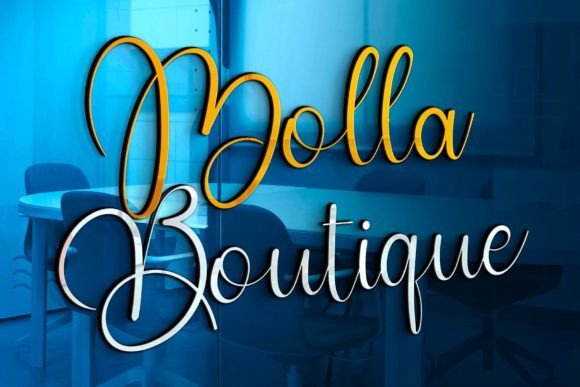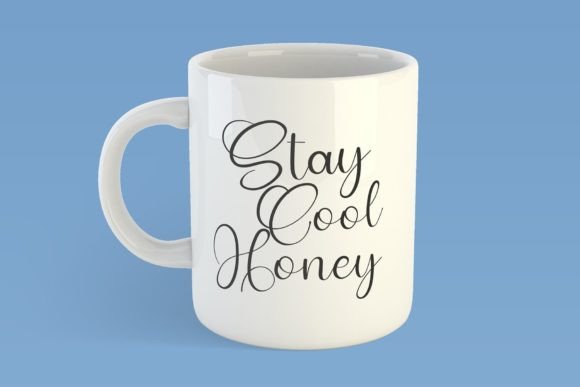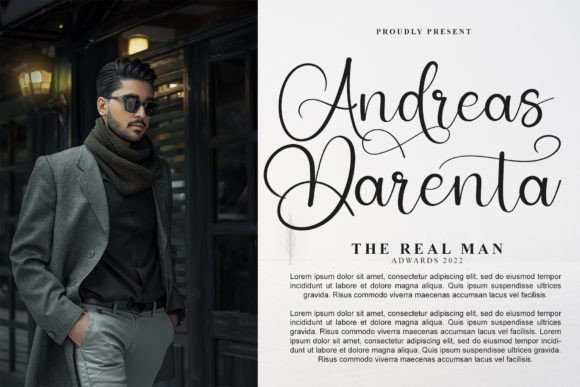
Introduction to Eviden Font
Eviden is a delicate and elegant handwritten font.
Its distinct and well-balanced letters make this font a masterpiece Fall in love with its incredibly versatile style and use it to create spectacular designs.